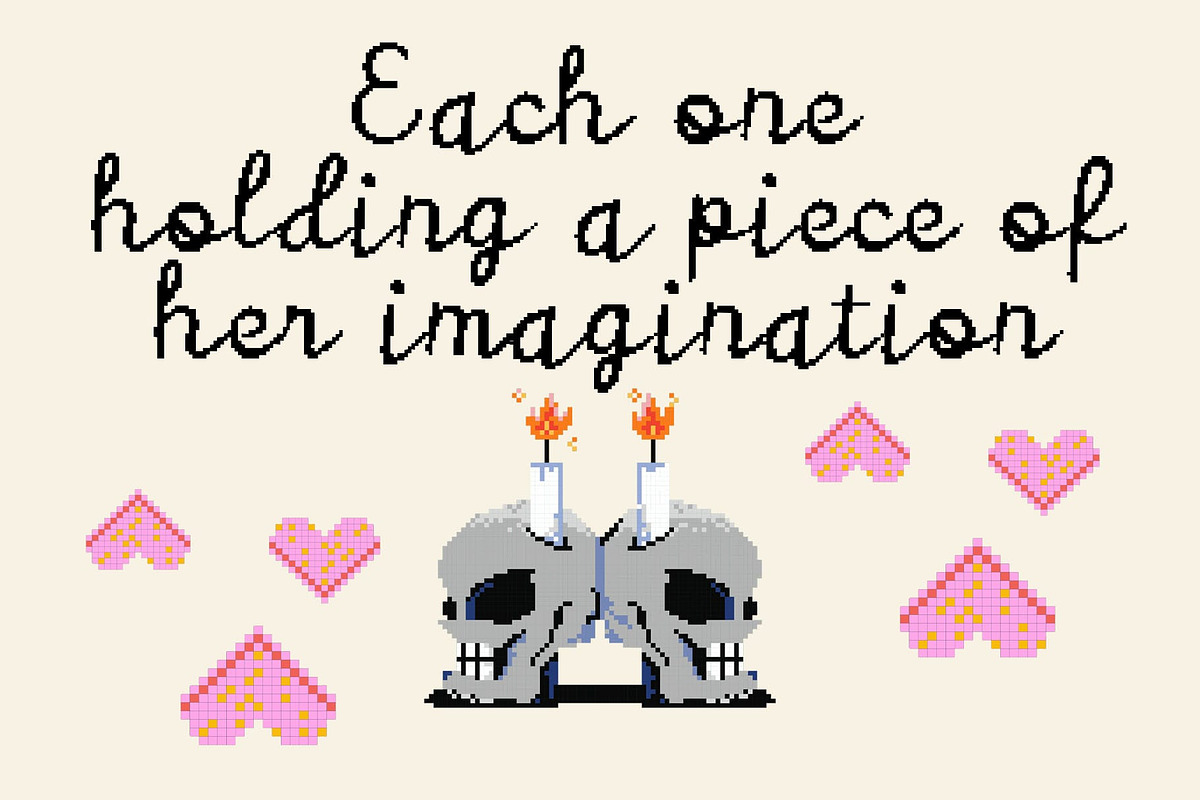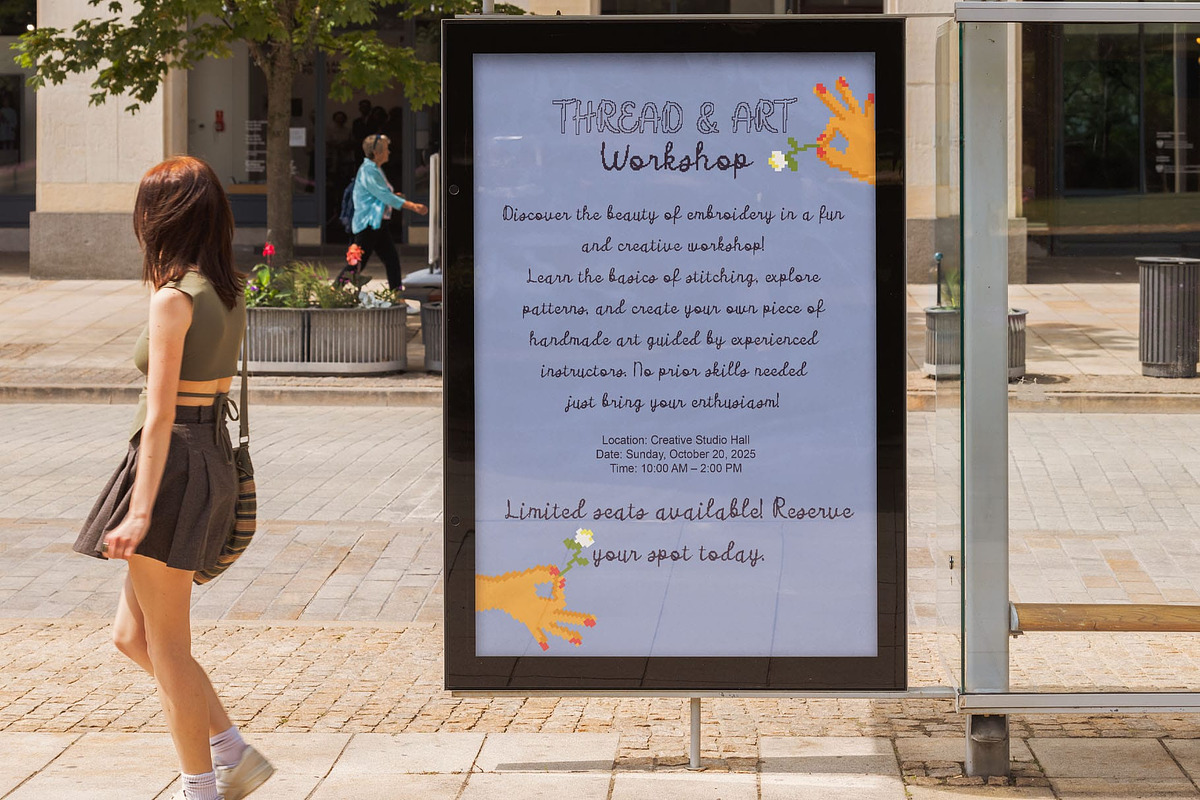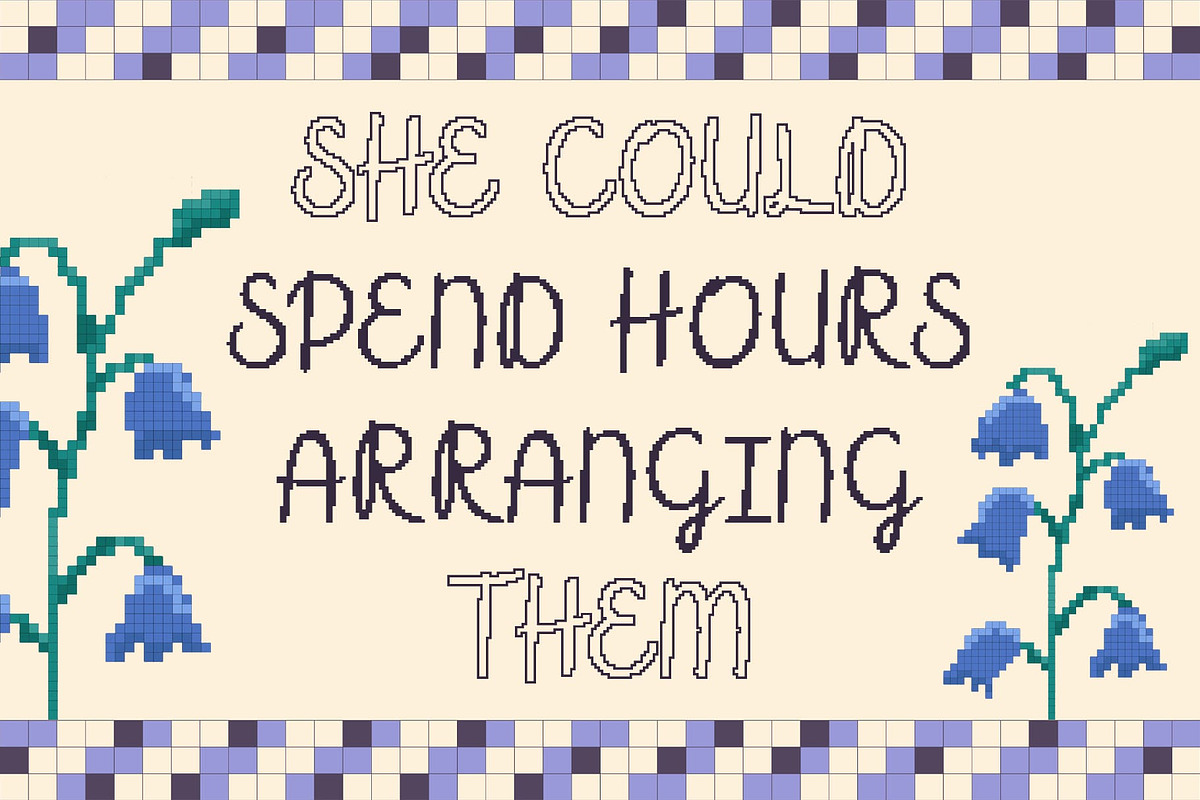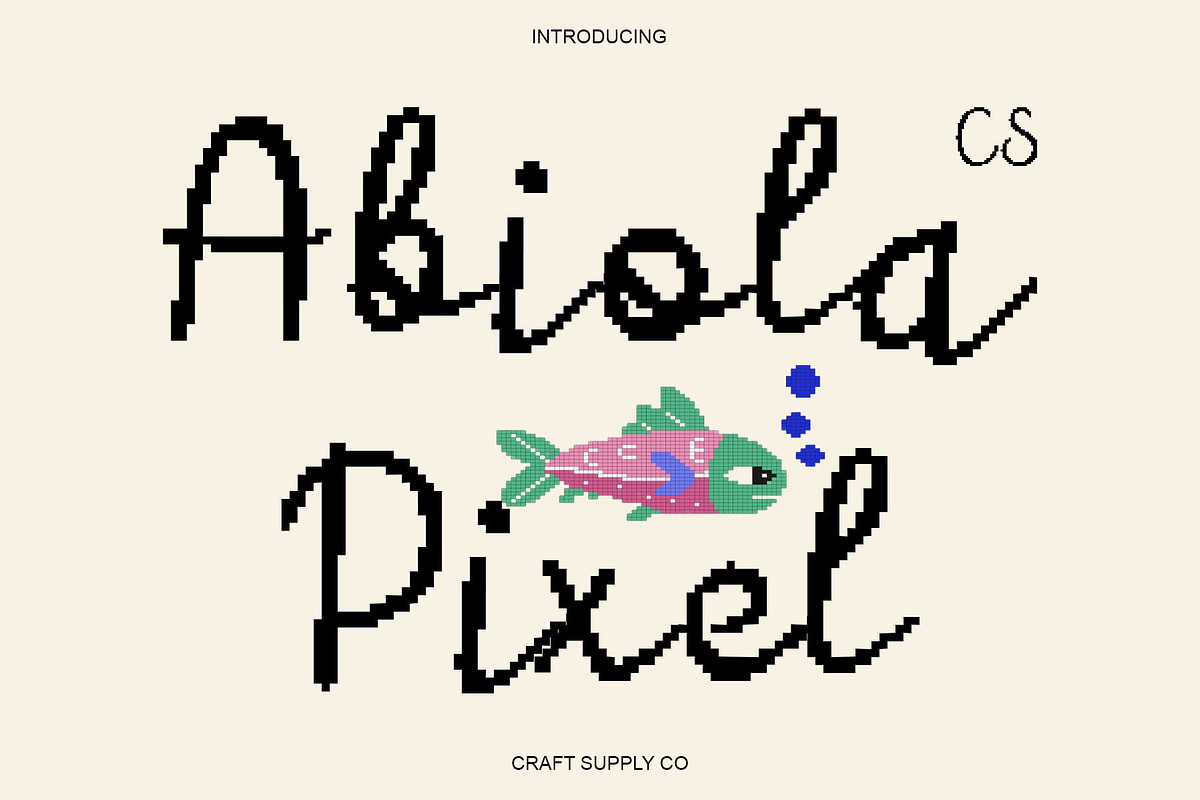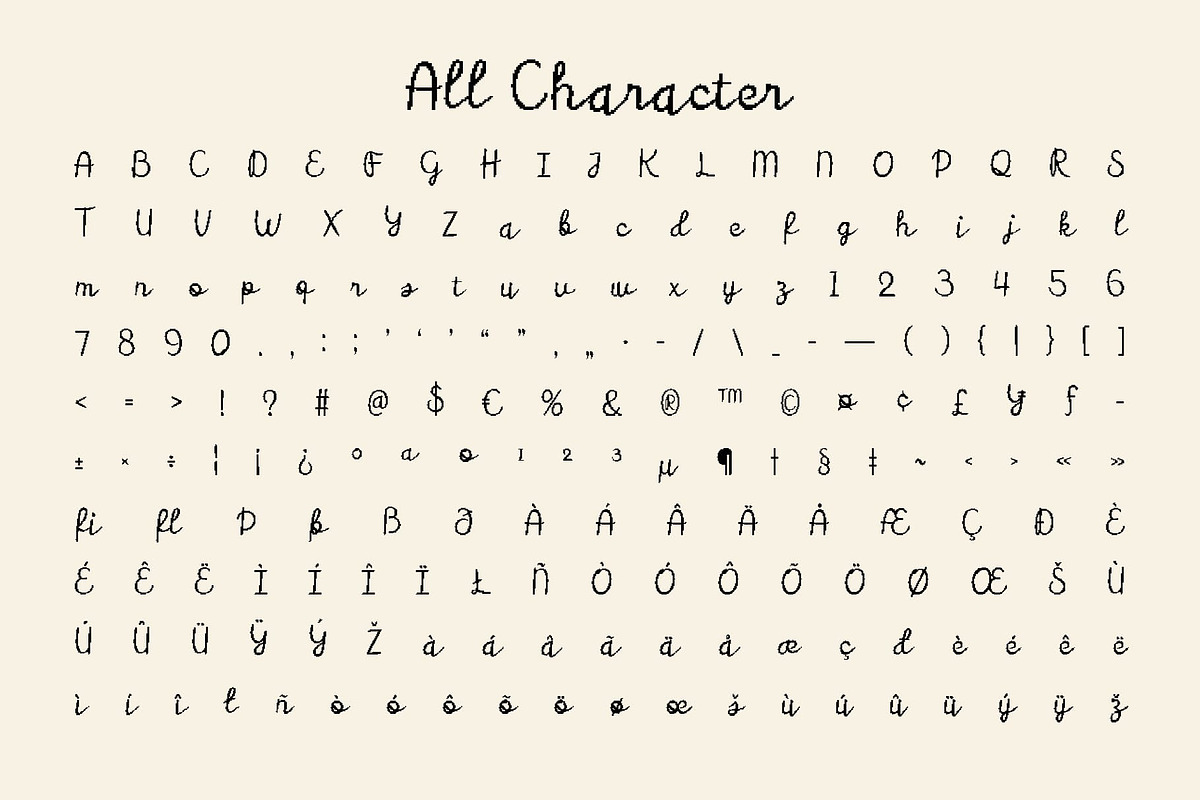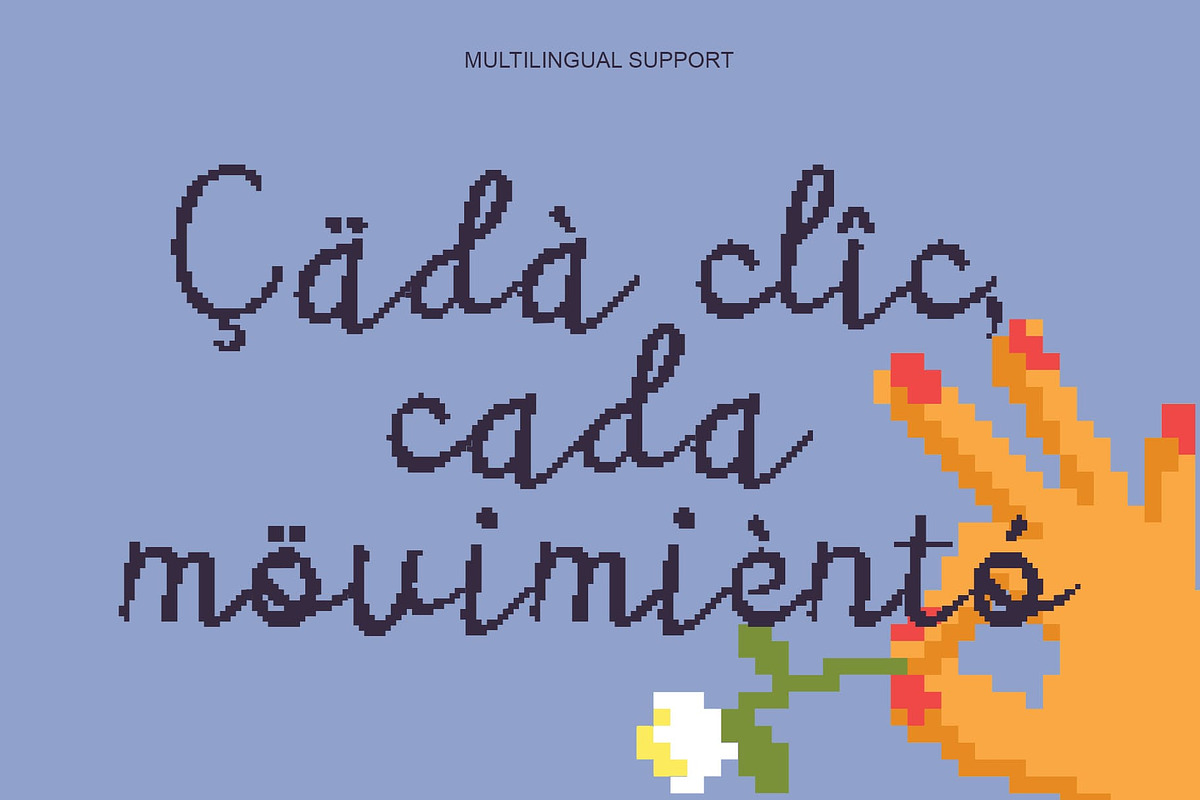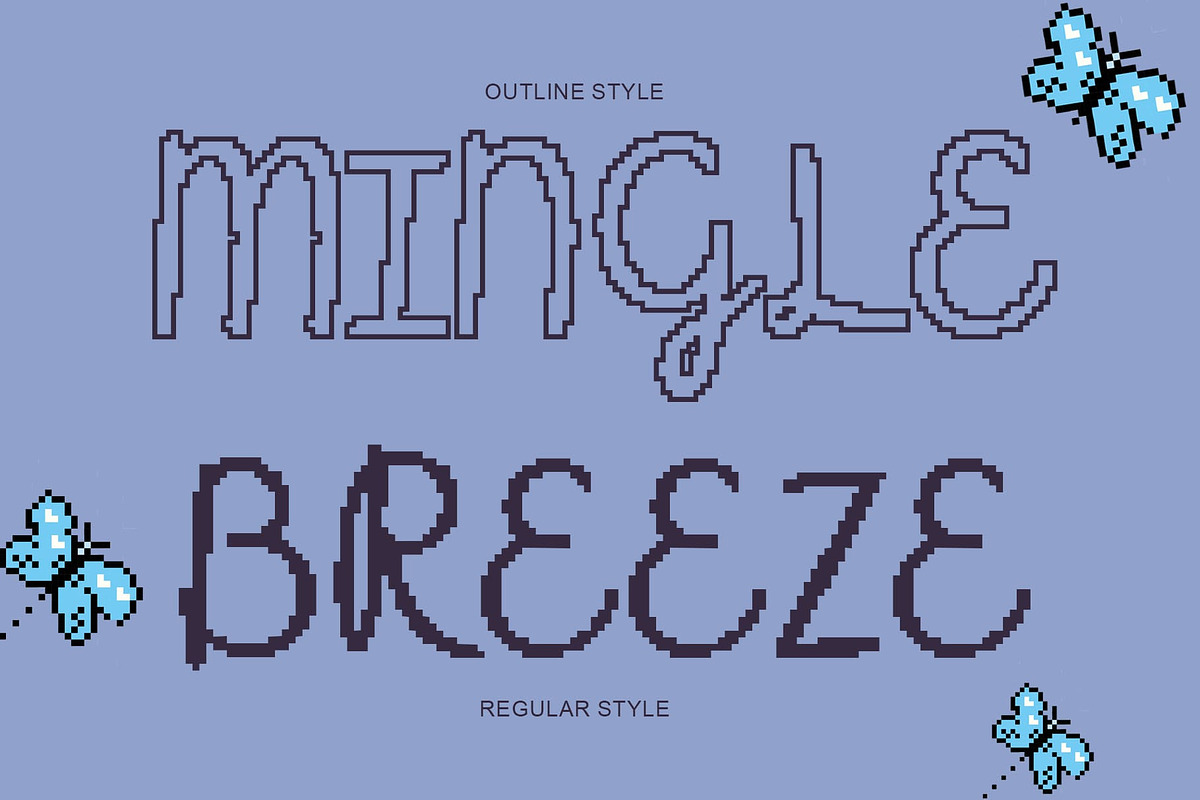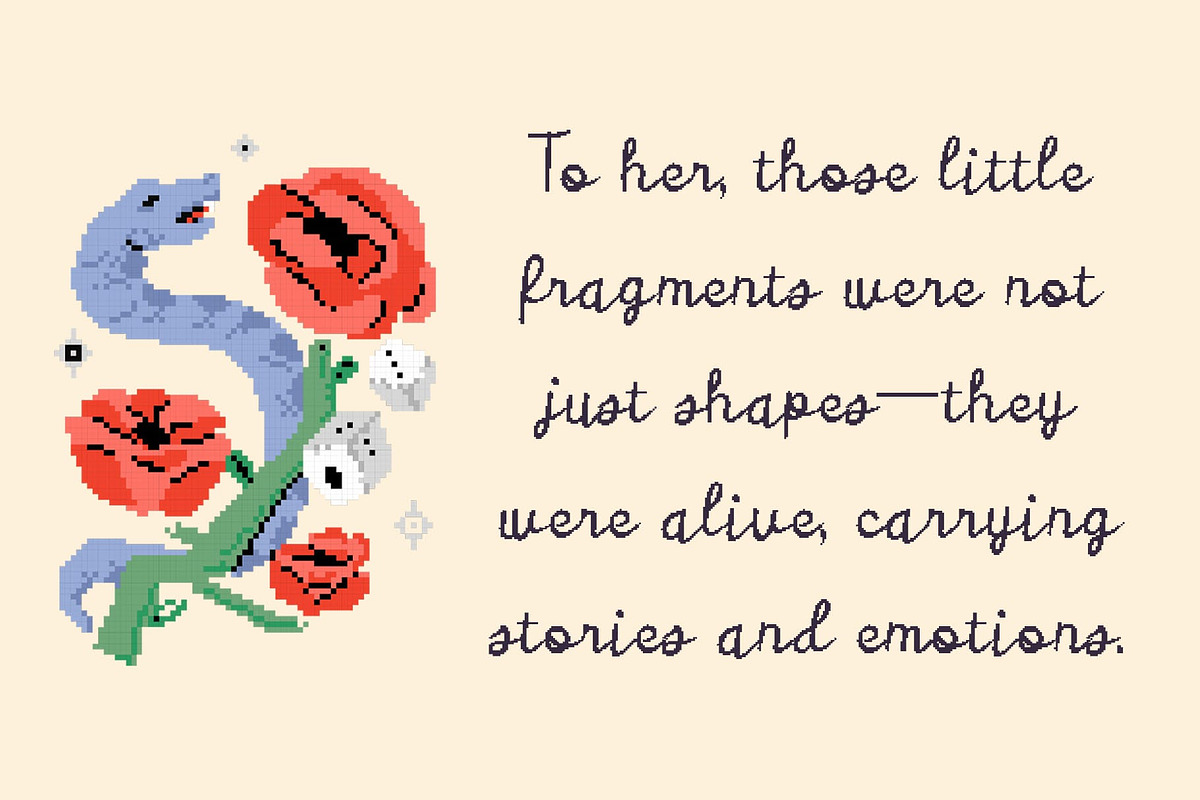
CS Abiola Pixel
CS Abiola Pixel – Where Romance Meets Digital Precision
Beauty Script with Mediterranean Elegance This is a beauty script font that exudes romantic charm and graceful motion. Inspired by Mediterranean elegance, its flowing strokes and delicate curves bring a sense of warmth and sophistication to any design. Each letter glides effortlessly, creating a timeless look that speaks of love, beauty, and refined style.
Pixel Style for a Modern Twist What sets this font apart is its innovative pixel detailing, which adds a fresh and futuristic edge to its romantic base. The combination of soft script forms and geometric pixel texture creates a stunning contrast where tradition meets technology. This fusion captures a modern, energetic spirit while maintaining the allure of hand-drawn elegance.
A Harmony of Art and Innovation This font bridges the gap between emotion and precision. The pixel influence enhances its visual rhythm, giving it a contemporary flair perfect for digital-age designs. Whether you’re crafting elegant logos or digital art pieces, this font brings a balance of romance and modern sophistication that feels effortlessly unique.
Perfect for Luxury and Elegant Creations Ideal for branding, wedding invitations, luxury packaging, or editorial layouts, this font delivers both charm and innovation. Its stylish flow and pixelated refinement make it a perfect choice for projects that want to appear artistic, high-end, and distinctly modern a true celebration of beauty in the digital era.